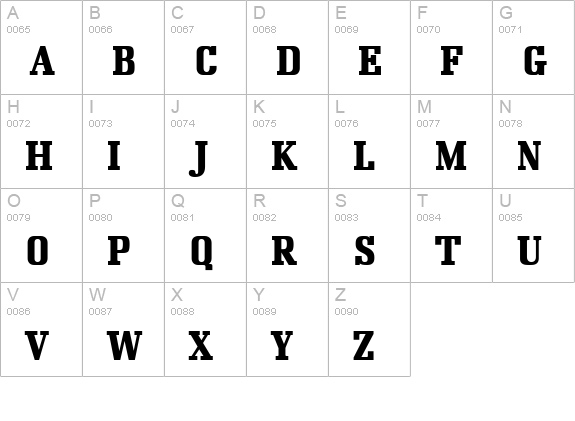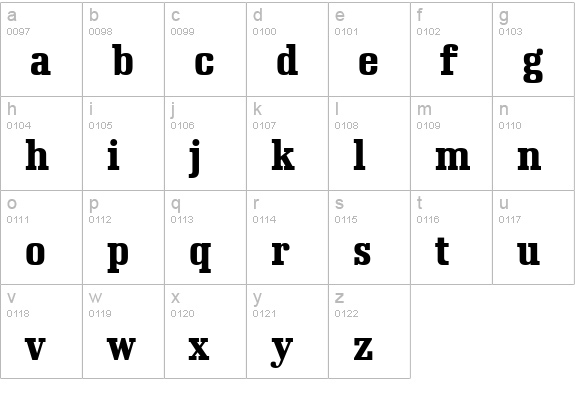
Napoleon Bold Condensed Font Details
Napoleon Bold Condensed is a strong, high-contrast, condensed-width variant in the Napoleon typeface family \xE2\x80\x94 well suited to headlines, attention-grabbing titles, and strong calls-to-action.
Napoleon Bold Condensed font is a powerful and striking typeface that exudes confidence and authority. Its condensed design makes it ideal for headlines, banners, and other display purposes where impact is key. The bold strokes and sharp angles of this font command attention and leave a lasting impression. What sets Napoleon Bold Condensed font apart is not just its bold appearance, but also its versatility. Whether used in print or digital designs, this font adds a touch of sophistication and modernity to any project. Its clean lines and strong presence make it a popular choice for designers looking to make a statement. And the best part? Napoleon Bold Condensed font is available for free download at FontsMarket.com. Now you can easily add this dynamic font to your design arsenal without breaking the bank. Don't miss out on the opportunity to elevate your designs with the bold and impactful Napoleon Bold Condensed font. Download it today and let your creativity shine!